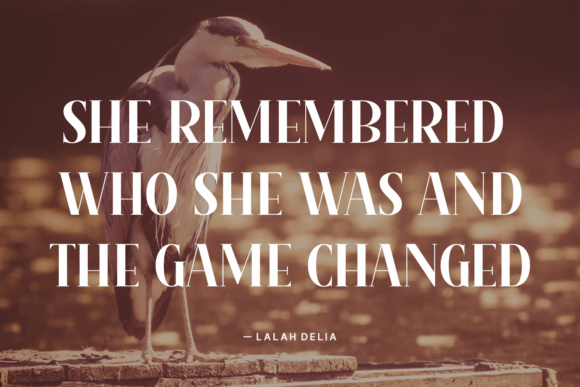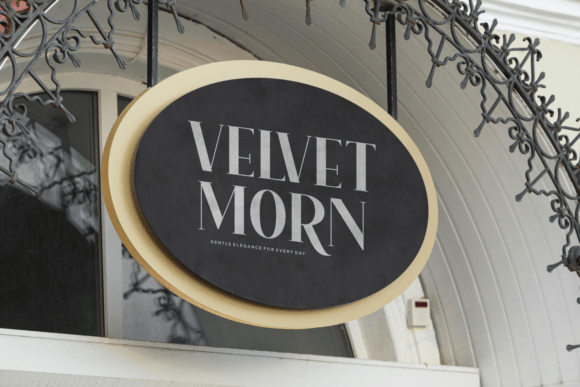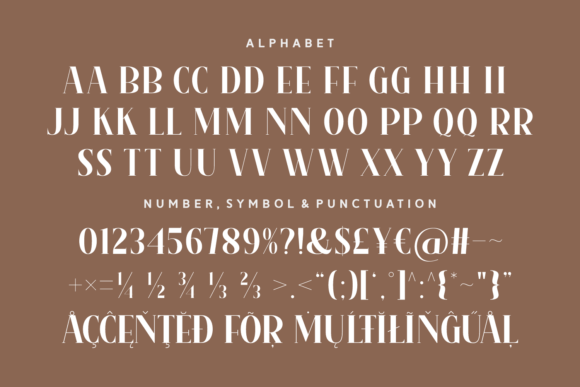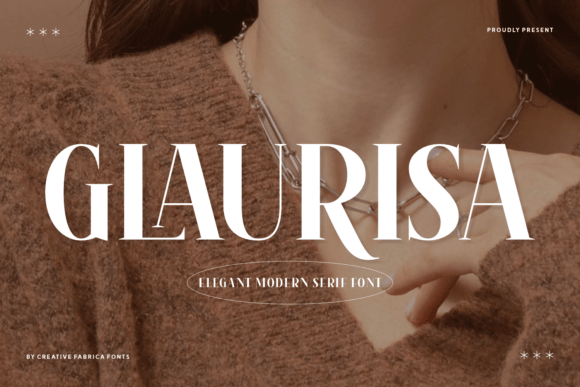
Introducing Glaurisa Font: Elevate Your Designs with Elegance and Sophistication
In the world of typography, a font can make all the difference in conveying the right message and aesthetic to your audience. For designers and crafters seeking to infuse their projects with a touch of luxury and refinement, Glaurisa Font emerges as a stunning solution. This elegant modern serif font is meticulously crafted to embody sophistication and timeless beauty, making it an ideal choice for a variety of high-end applications.
The Essence of Glaurisa Font
Glaurisa is not just a font; it’s an experience. With its refined strokes, graceful contrasts, and stylish details, it brings a level of sophistication that is hard to match. This modern serif font strikes the perfect balance between classic elegance and a contemporary edge, allowing designers to create bold yet refined statements. Whether you’re working on high-end branding, fashion editorials, wedding invitations, or luxury packaging, Glaurisa provides the versatility and aesthetic appeal needed to elevate your designs.
Key Features of Glaurisa Font
• Refined Strokes: Glaurisa’s strokes are carefully designed to offer a smooth and luxurious feel, ensuring that your text reads beautifully across various mediums.
• Graceful Contrasts: The font features well-balanced contrasts between thick and thin strokes, adding depth and elegance to your designs.
• Stylish Details: From subtle nuances to more pronounced features, Glaurisa’s stylish details contribute to its unique charm and versatility.
• Classic yet Contemporary: Glaurisa seamlessly merges traditional serif elements with modern flair, making it suitable for a wide range of projects that demand both sophistication and a fresh perspective.
Applications of Glaurisa Font
Glaurisa’s versatility is one of its most compelling attributes. Here are some of the ideal applications for this stunning font:
• High-End Branding: Create a lasting impression with Glaurisa’s luxurious and refined aesthetic, perfect for brands that aim to convey elegance and sophistication.
• Fashion Editorials: Stand out in the fashion world with a font that exudes style and high-end quality, suitable for magazine covers, fashion blogs, and editorial pieces.
• Wedding Invitations: Add a touch of luxury and romance to your wedding invitations and stationery with Glaurisa’s elegant and beautiful design.
• Luxury Packaging: Elevate your product packaging with a font that communicates premium quality and sophistication, helping your product to stand out on store shelves.
Why Choose Glaurisa Font?
In a market saturated with generic fonts, Glaurisa stands out for its unique blend of elegance, sophistication, and modernity. Here are a few reasons why designers and crafters are gravitating towards Glaurisa:
• Unique Aesthetic: Glaurisa offers a distinct look that can help your designs stand out from the crowd.
• Versatility: Its adaptability across various projects and mediums makes Glaurisa a valuable addition to any designer’s toolkit.
• Timeless Appeal: Unlike trends that fade, Glaurisa’s classic elegance ensures it remains relevant and stylish for years to come.
Glaurisa Font is more than just a typeface; it’s a design statement. With its elegant modern serif design, it offers a perfect blend of sophistication, elegance, and versatility. Whether you’re a designer looking to elevate your branding, a craftsperson seeking the perfect font for your luxury packaging, or simply someone who appreciates beautiful typography, Glaurisa is an exceptional choice. Embrace the elegance and sophistication that Glaurisa brings to your creative projects and witness the transformative power of typography.